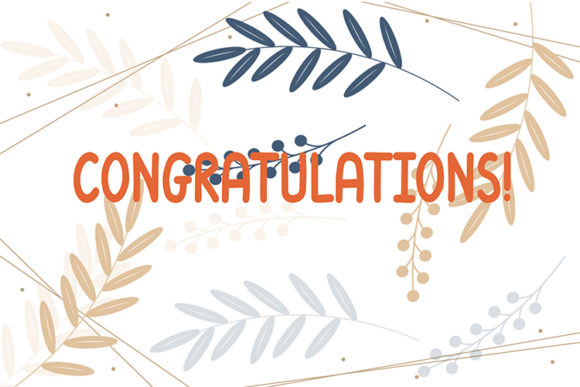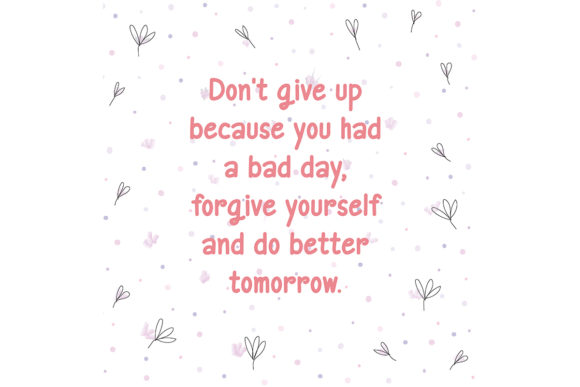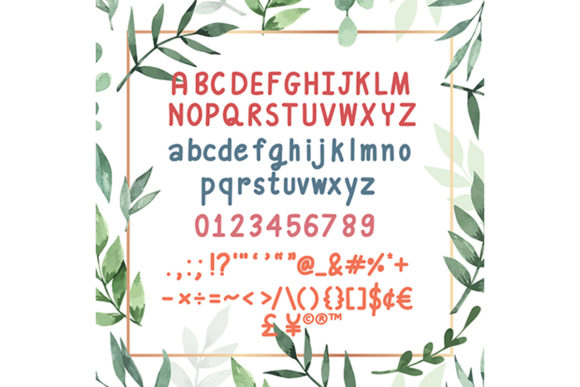
Introducing Happy Sunday Font: The Perfect Addition to Your Design Arsenal
Are you tired of using the same old fonts for your design projects? Look no further! Happy Sunday Font is here to bring a touch of sweetness and playfulness to your creations. This delightful, handwritten font is perfect for designers and crafters looking to add a childlike charm to their work.
What is Happy Sunday Font?
Happy Sunday Font is a sweet, simple, and friendly handwritten font that is sure to capture the hearts of your audience. Its childlike playfulness makes it an ideal choice for kids and school projects, but it’s also versatile enough to be used in a variety of other design applications.
Key Features of Happy Sunday Font
- Handwritten style: Happy Sunday Font boasts a beautiful, handwritten style that exudes warmth and friendliness.
- Childlike playfulness: This font is perfect for designs that require a touch of whimsy and playfulness.
- Simple and sweet: Happy Sunday Font is easy to read and understand, making it perfect for use in a variety of design projects.
- Versatile: This font can be used in kids and school projects, as well as in a range of other design applications, including greeting cards, posters, and more.
Why Choose Happy Sunday Font?
There are many reasons why Happy Sunday Font should be your go-to font for your design projects. Here are just a few:
- Unique and eye-catching: Happy Sunday Font is sure to grab the attention of your audience and set your designs apart from the crowd.
- Easy to read: The simple and clear design of this font makes it easy to read, even for younger audiences.
- Customizable: Happy Sunday Font can be easily customized to fit your design needs, making it a versatile addition to your font collection.
How to Use Happy Sunday Font
Happy Sunday Font can be used in a variety of design projects, including:
- Kids and school projects: This font is perfect for use in kids and school projects, such as posters, presentations, and worksheets.
- Greeting cards and invitations: Happy Sunday Font can add a touch of warmth and friendliness to your greeting cards and invitations.
- Posters and flyers: This font is ideal for use in posters and flyers, where you want to grab the attention of your audience and convey a sense of fun and playfulness.
Tips for Getting the Most Out of Happy Sunday Font
Here are a few tips for getting the most out of Happy Sunday Font:
- Experiment with different colors: Happy Sunday Font looks great in a range of colors, so don’t be afraid to experiment and find the perfect hue for your design.
- Use it with other fonts: This font pairs well with other fonts, so try combining it with other fonts to create a unique and eye-catching design.
- Play with font sizes: Happy Sunday Font looks great in a range of font sizes, so experiment with different sizes to add visual interest to your design.
Happy Sunday Font is a sweet, simple, and friendly handwritten font that is sure to bring a touch of childlike playfulness to your design projects. With its unique and eye-catching design, ease of use, and versatility, this font is perfect for designers and crafters looking to add a little whimsy to their work. So why not give Happy Sunday Font a try and see the difference it can make in your designs?
Whether you’re working on kids and school projects, greeting cards and invitations, or posters and flyers, Happy Sunday Font is the perfect addition to your design arsenal. So go ahead, get creative, and brighten up your designs with this delightful font!